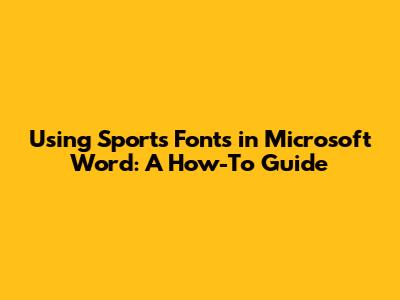
Hey there, sports enthusiasts and Word aficionados! Ever wanted to spice up your documents with some sporty flair? Whether you're creating a team roster, designing a sports-themed flyer, or just want to add some energy to your text, using the right sports font in Microsoft Word can make all the difference. In this guide, we'll dive into everything you need to know about incorporating dynamic and eye-catching sports fonts into your projects. Let's get started!
Finding the Perfect Sports Font
First things first, finding the perfect sports font is crucial. The font you choose should reflect the spirit and energy of the sport you're representing. Fortunately, the internet is brimming with options, ranging from sleek and modern designs to rugged and vintage styles. Here’s how to navigate the font-finding process:
Online Font Repositories
Websites like DaFont, Google Fonts, and Fontspace are treasure troves for free and premium fonts. These platforms offer a vast selection of fonts that cater to various sports themes. For example, you might find fonts that mimic the lettering on baseball jerseys, the sleek lines of race cars, or the bold typography used in basketball branding. When browsing these sites, use keywords like "sports," "athletic," "varsity," or specific sport names (e.g., "baseball font," "football font") to narrow down your search.
DaFont is particularly popular for its user-friendly interface and extensive collection of free fonts. You can easily preview how your text will look in different fonts and download them directly to your computer. Google Fonts is another excellent resource, offering a curated selection of open-source fonts that are free for both personal and commercial use. The advantage of using Google Fonts is their seamless integration with web projects, but they also work perfectly well in Microsoft Word.
Consider the Sport
Think about the specific sport you want to represent. A font that works well for a high-octane sport like Formula 1 racing might not be suitable for something more traditional like golf. For racing, you might want a font that’s fast, angular, and modern. For golf, a more classic and elegant serif font could be a better fit. Matching the font to the sport’s aesthetic enhances the overall impact of your document.
Readability is Key
While it’s tempting to choose a font that looks super cool and dynamic, always prioritize readability. A font that’s too stylized or decorative can be difficult to read, especially in longer blocks of text. Ensure that your chosen font is clear and legible, even at smaller sizes. Test it out with different text sizes and styles (bold, italic) to see how it performs.